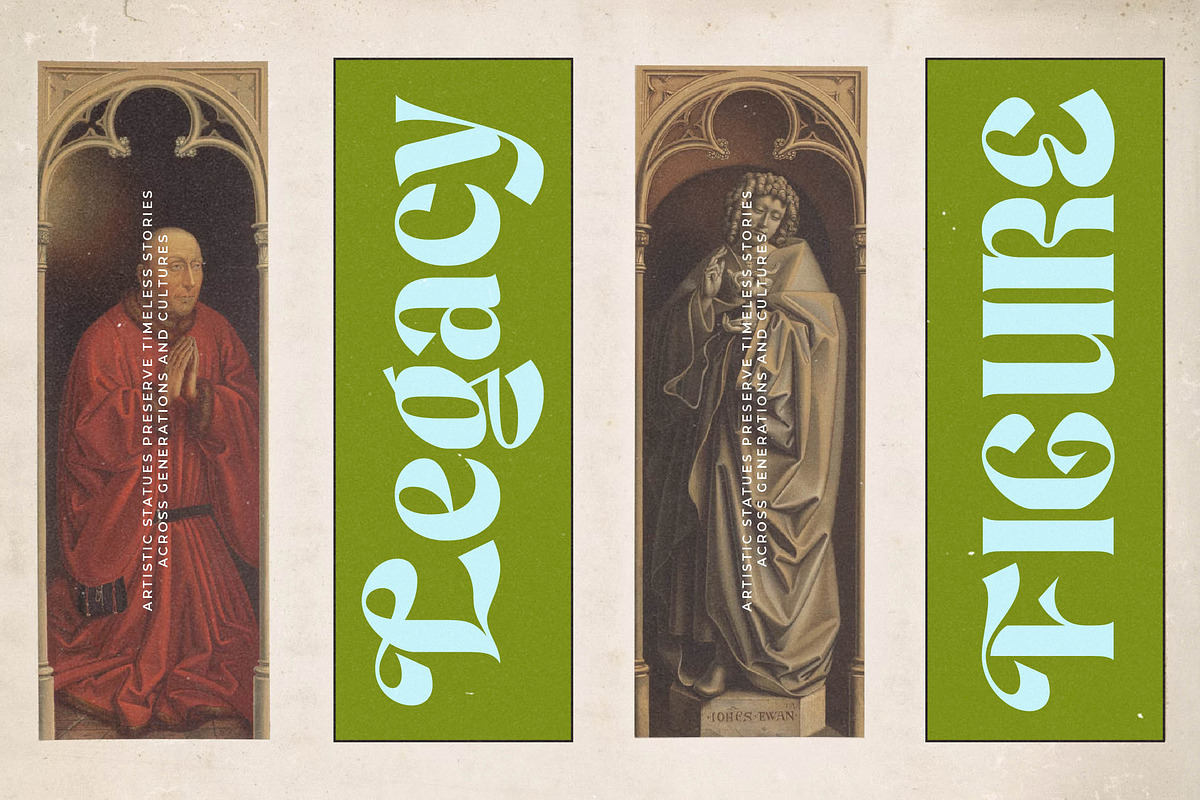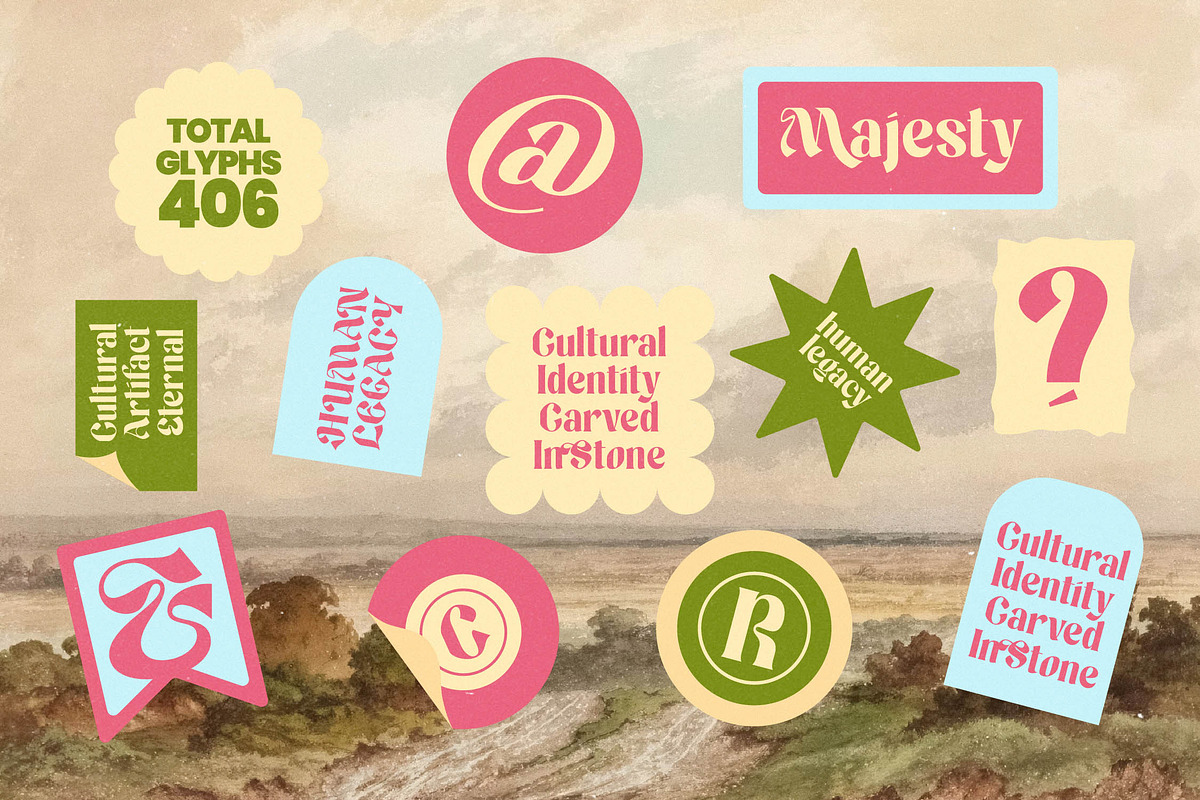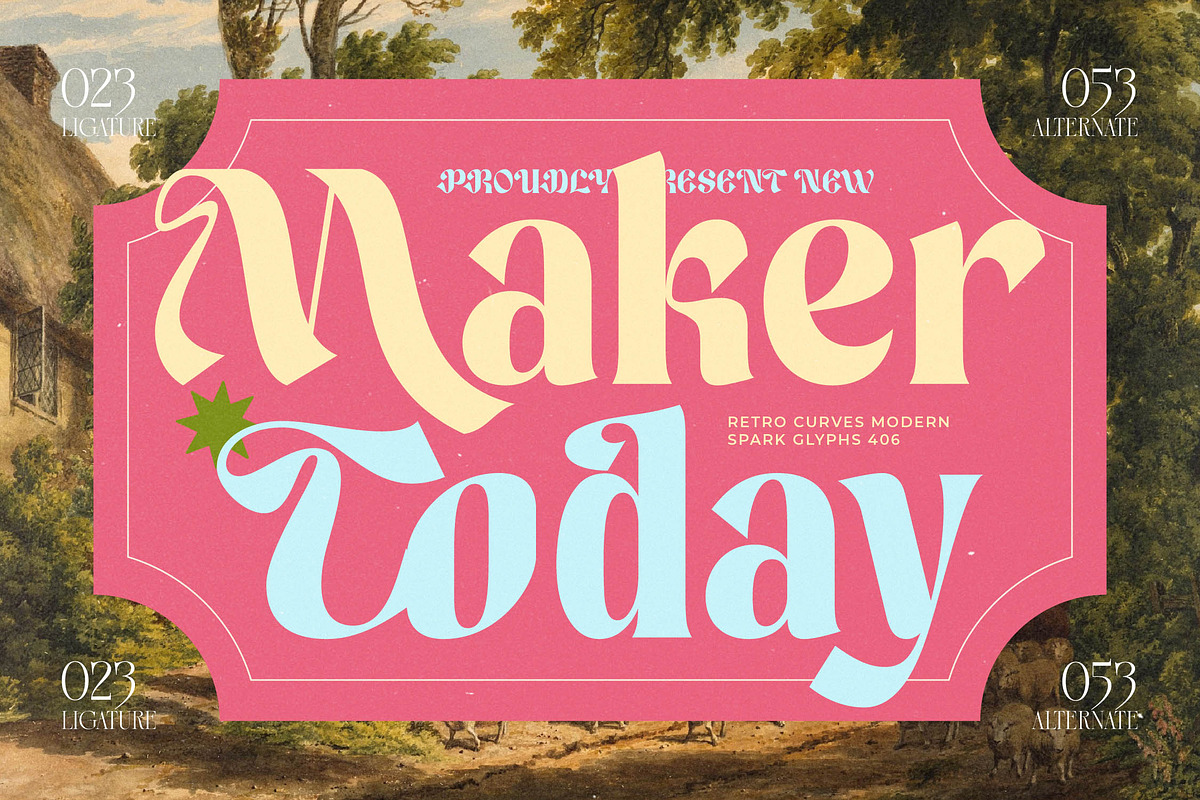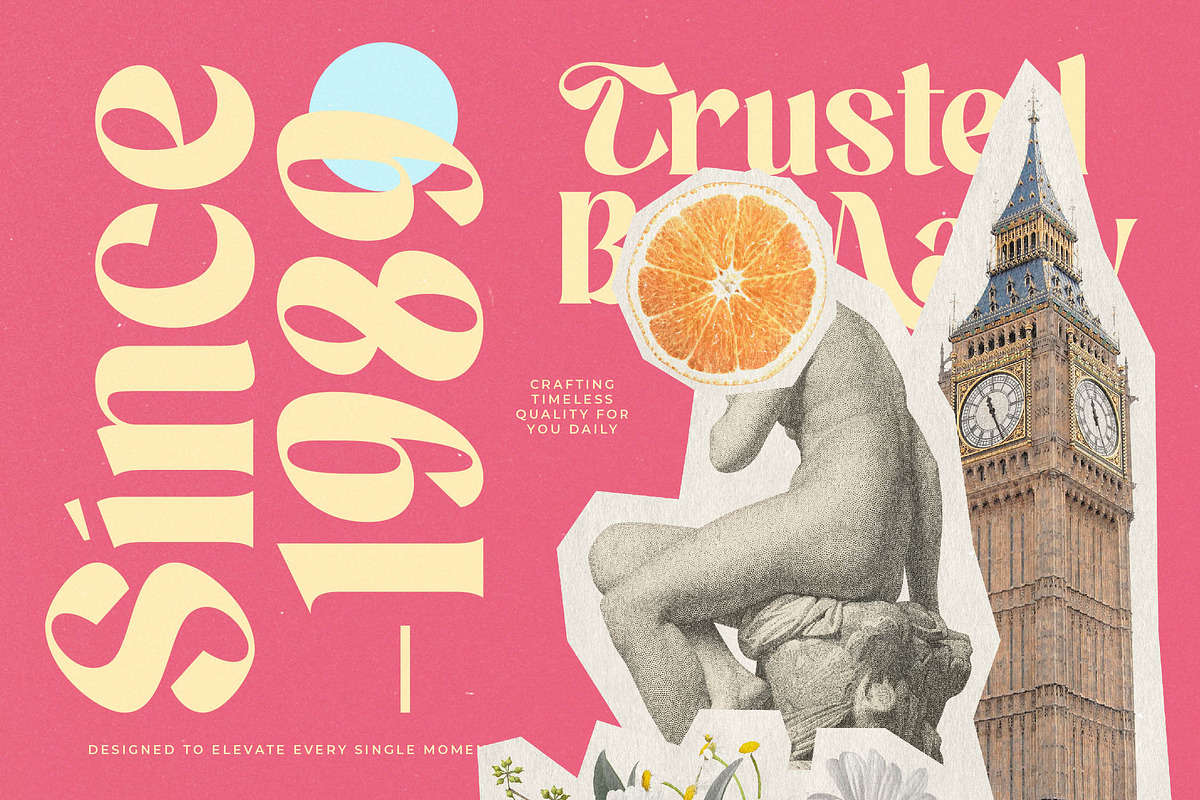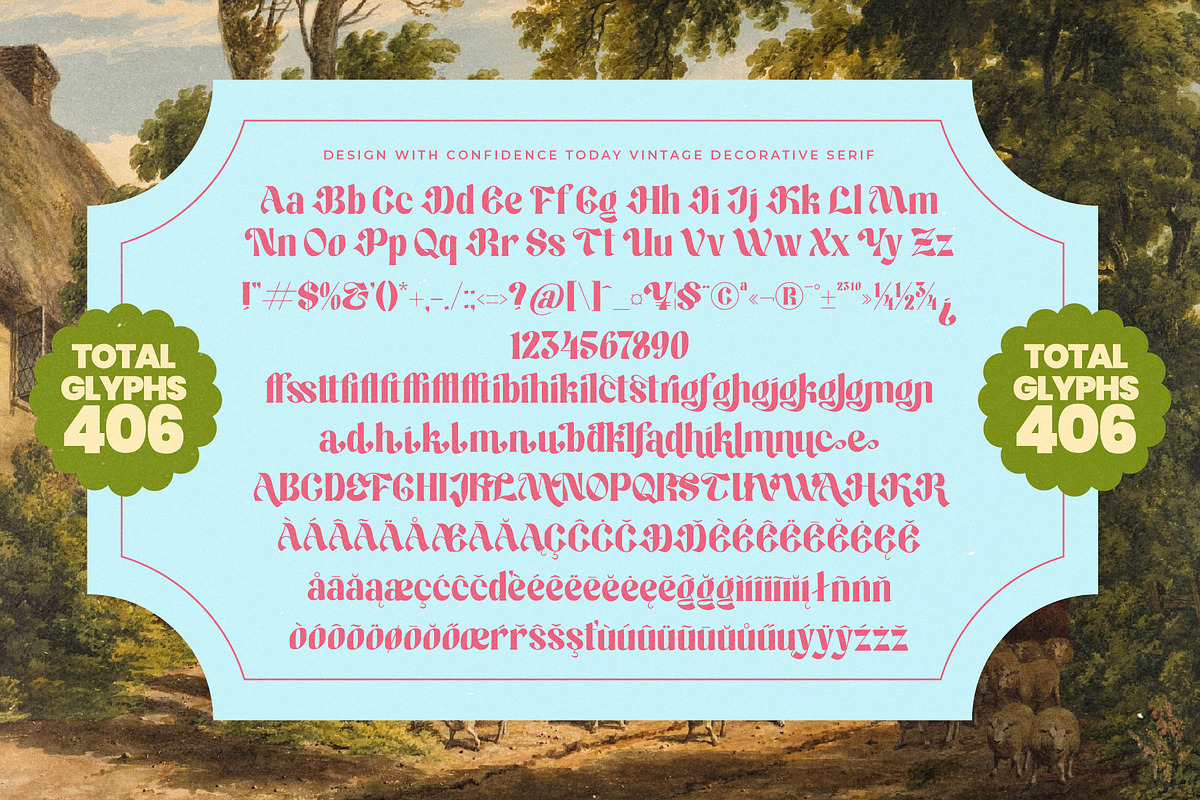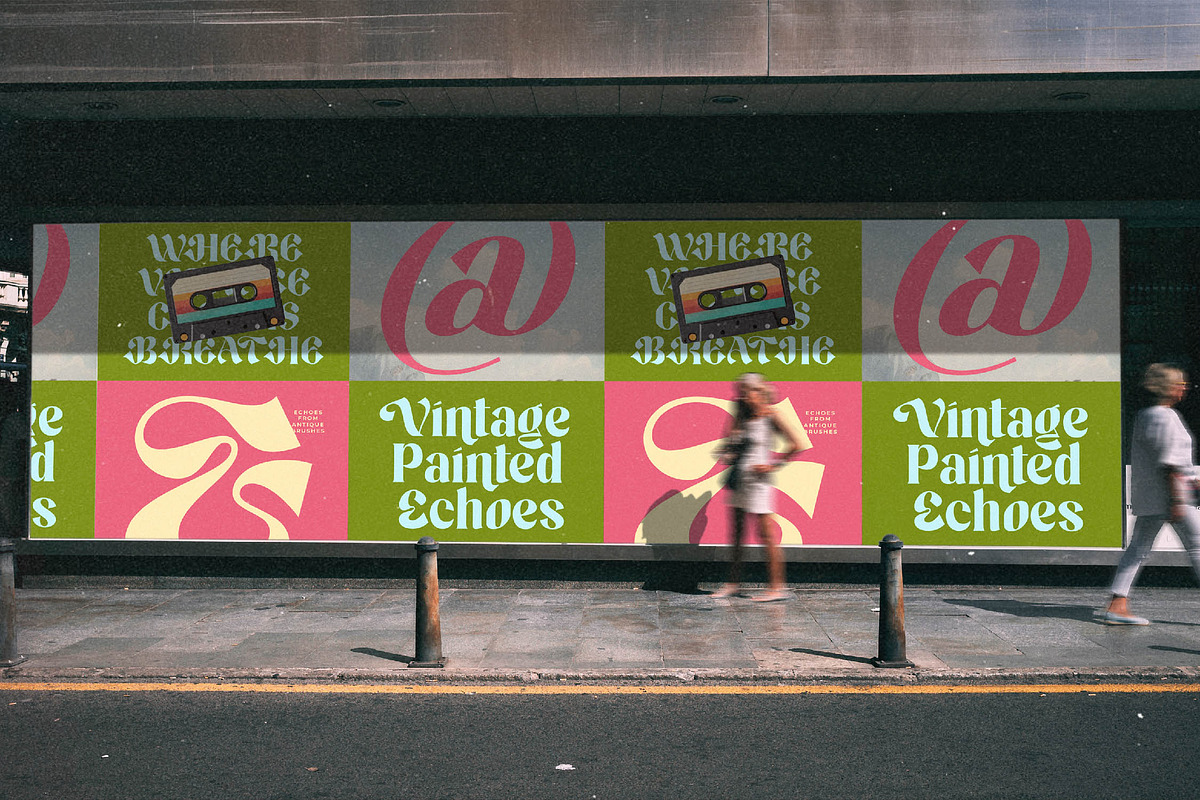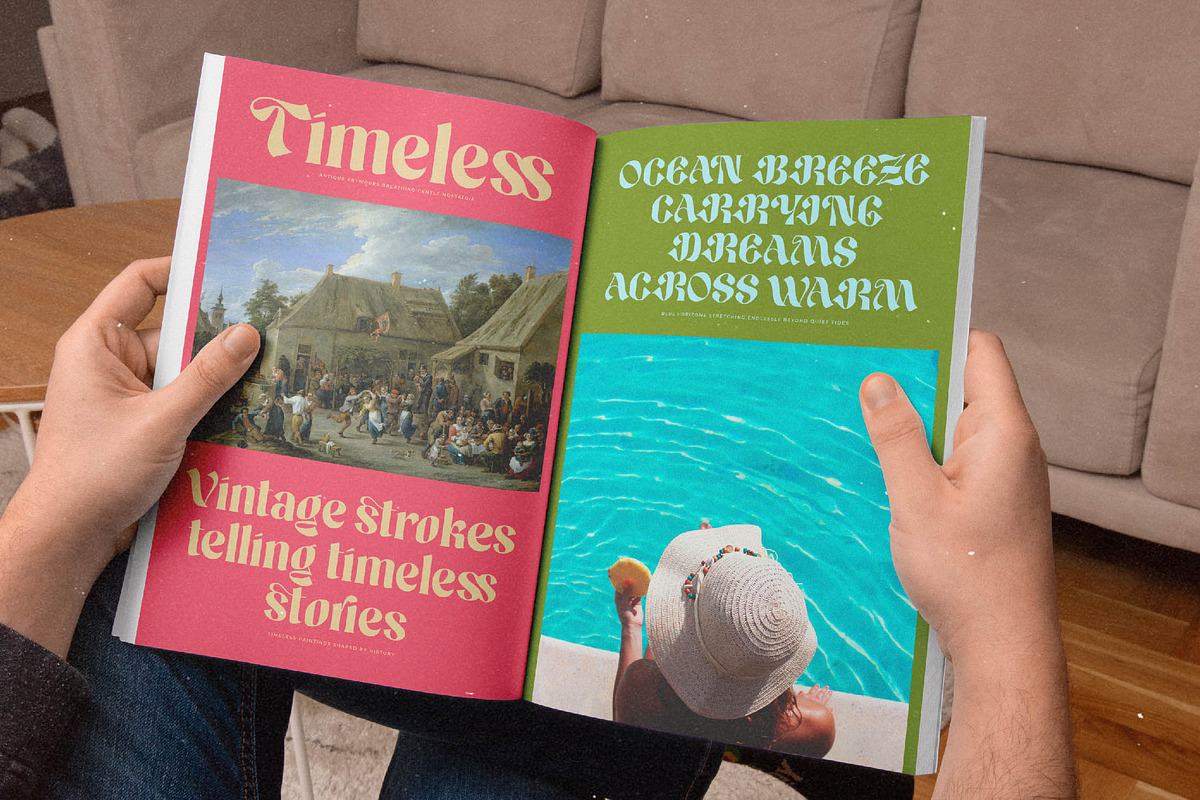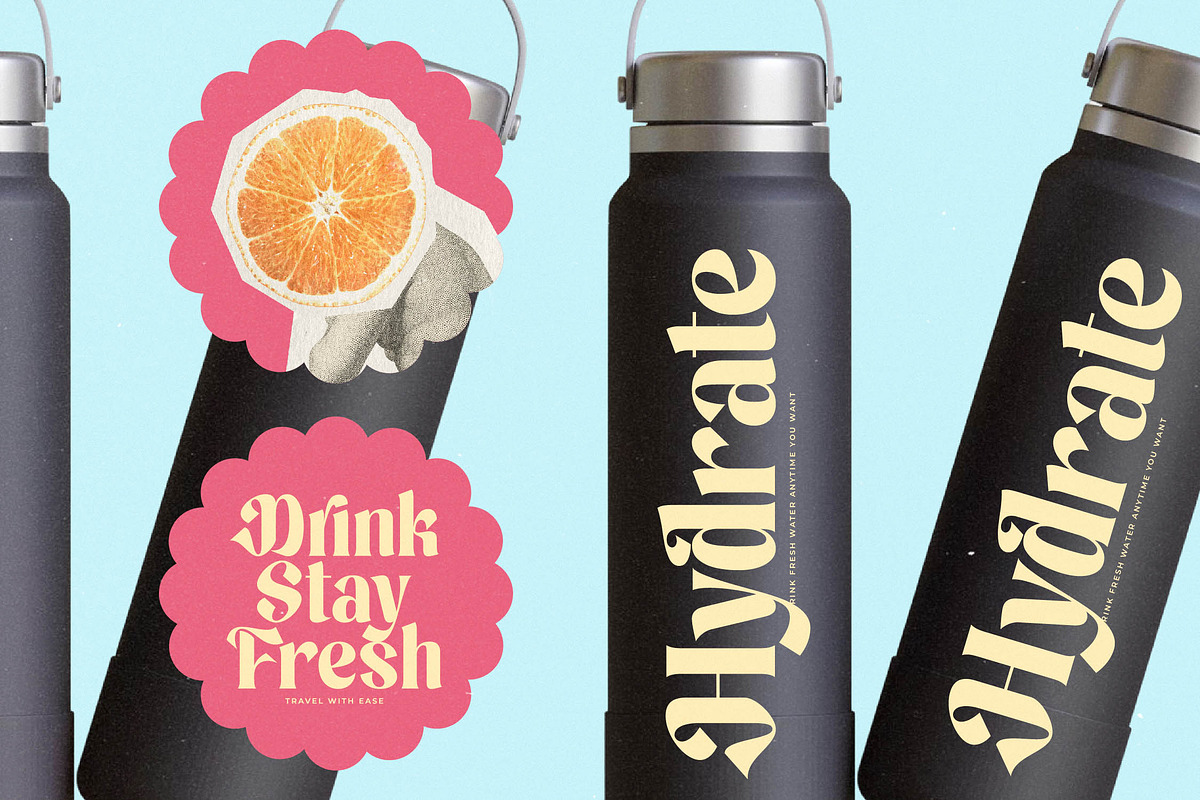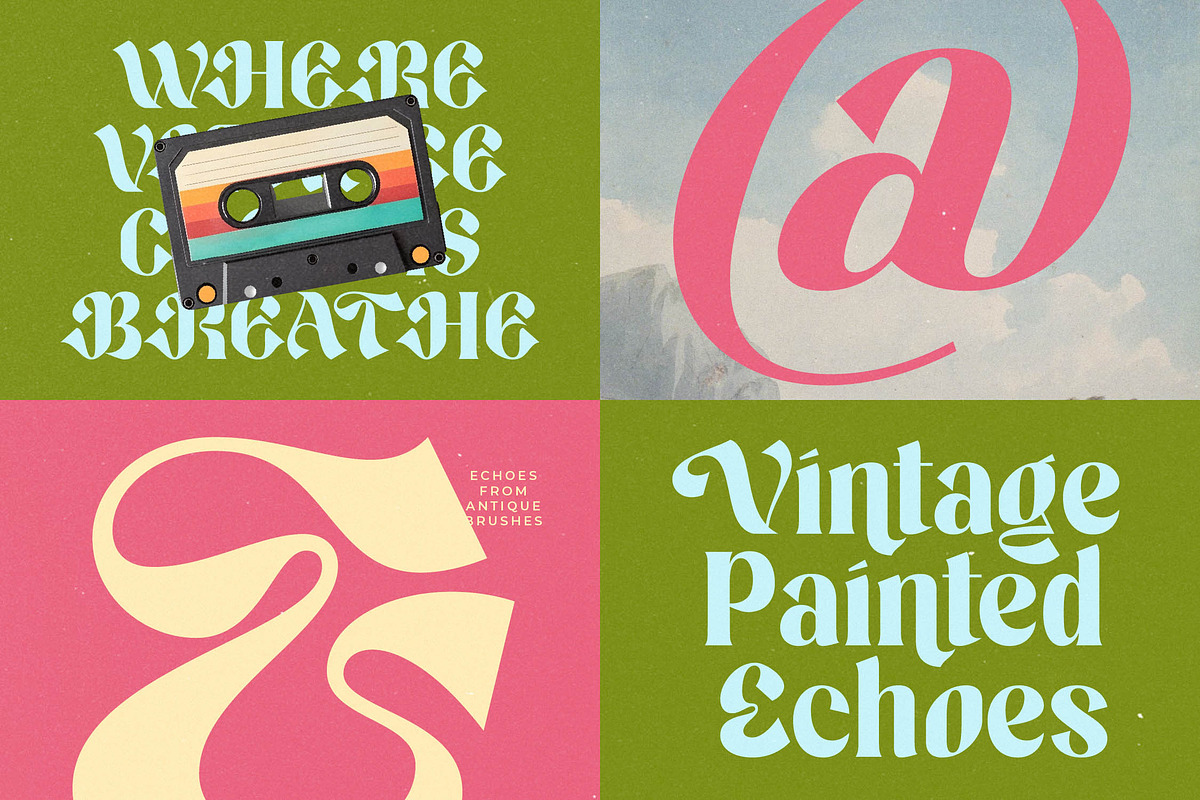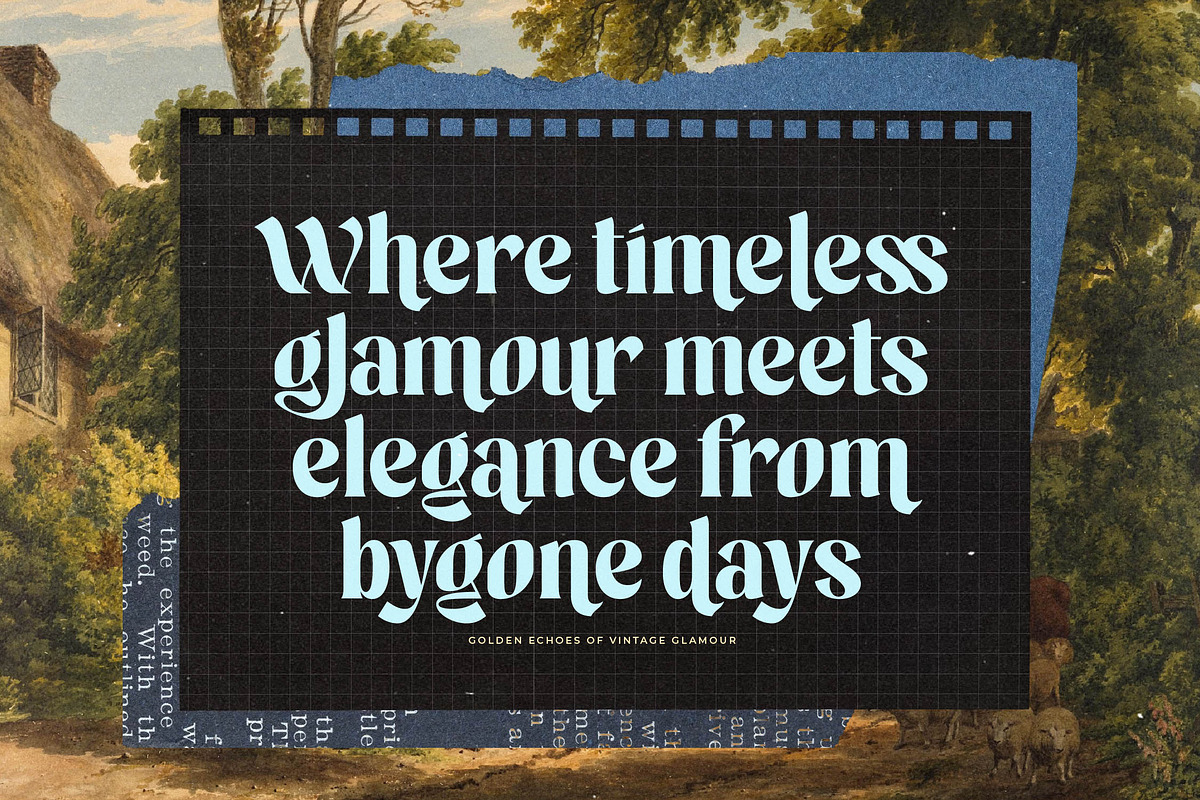
Maker Today Modern Retro Serif
Step into a world where timeless elegance meets contemporary flair with the stunning Maker Today typeface. This font captures the essence of sophisticated design, offering a unique visual rhythm that elevates any creative project to a work of art.
Inspired by the graceful curves of vintage metal type and the precision of modern digital aesthetics, this collection bridges the gap between the past and the present. It draws from a heritage of fine craftsmanship, bringing a sense of history and depth to your digital canvas.
Exuding an air of confidence, this modern serif display is engineered for luxury typography and high-end appeal. Its high-contrast serif strokes provide a dramatic editorial font presence that ensures every word carries a significant branding impact for discerning audiences.
Perfectly aligned with the current modern serif trend, this typeface answers the call for more character-driven typography in a sea of minimalism. It is one of those essential editorial display fonts that allows designers to break away from the ordinary and embrace a more expressive visual language.
From high-concept logo design and cohesive corporate branding to sprawling editorial spreads, its versatility is unmatched. It shines in luxury packaging, romantic wedding stationery, and fast-paced fashion lookbooks where style and legibility must coexist beautifully.
This comprehensive package includes over 400 glyphs, featuring a wide array of ligatures and unique alternates to customize your text. With flowing swashes, full multilingual support, and a robust set of international characters, it is ready for global design challenges.
Numerals
Punctuations (OpenType Standard)
Accents (Multilingual Characters)
Ligatures and Alternative Style Stylistic Set